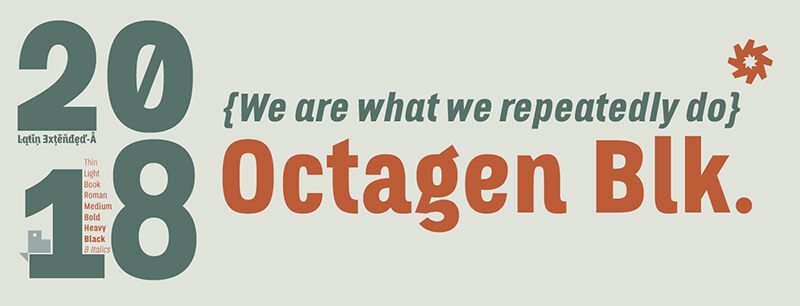
Octagen Black Black Italic
Octagen is a family of 16 condensed Sans Serif fonts of geometric construction and neo-Gothic style with short descenders and a humanistic finish in the curves and auctions of the tiny letters to avoid the coldness of the grotesque typographies, providing expressiveness, energy, warmth and docility , resulting in a friendly typography with a lot of personality and readability, specially drawn for the composition of short and medium texts, signage or headlines where horizontal space saving is needed.
deFharo: Octagen Black Italic: 2018
Octagen is a family of condensed Sans Serif fonts of geometric construction and neo-Gothic style with short descenders and a humanistic finish in the curves and auctions of letters, to avoid the coldness of the grotesque typographies, providing expressiveness, energy, warmth and docility, which results in a friendly typography with a lot of personality and readability, especially drawn for the composition, for example, of short and medium texts, signage or headlines.
The typography has 529 glyphs (Latin Extended-A) with advanced OpenType functions, several number games, a complete set of neutral-style alternative lower case letters and the Bitcoin symbol.
For Octagen cursive styles I used a set of lowercase letters without terminal finishes, more neutral than the regular versions, this being compensated by the expressiveness of the italics inclination, thus achieving important morphological, coherent differences within the conceptual development of this typographic family.
The typography has 529 glyphs (Latin Extended-A) with advanced OpenType functions, several number games, a complete set of neutral-style alternative lower case letters and the Bitcoin symbol.
For Octagen cursive styles I used a set of lowercase letters without terminal finishes, more neutral than the regular versions, this being compensated by the expressiveness of the italics inclination, thus achieving important morphological, coherent differences within the conceptual development of this typographic family.